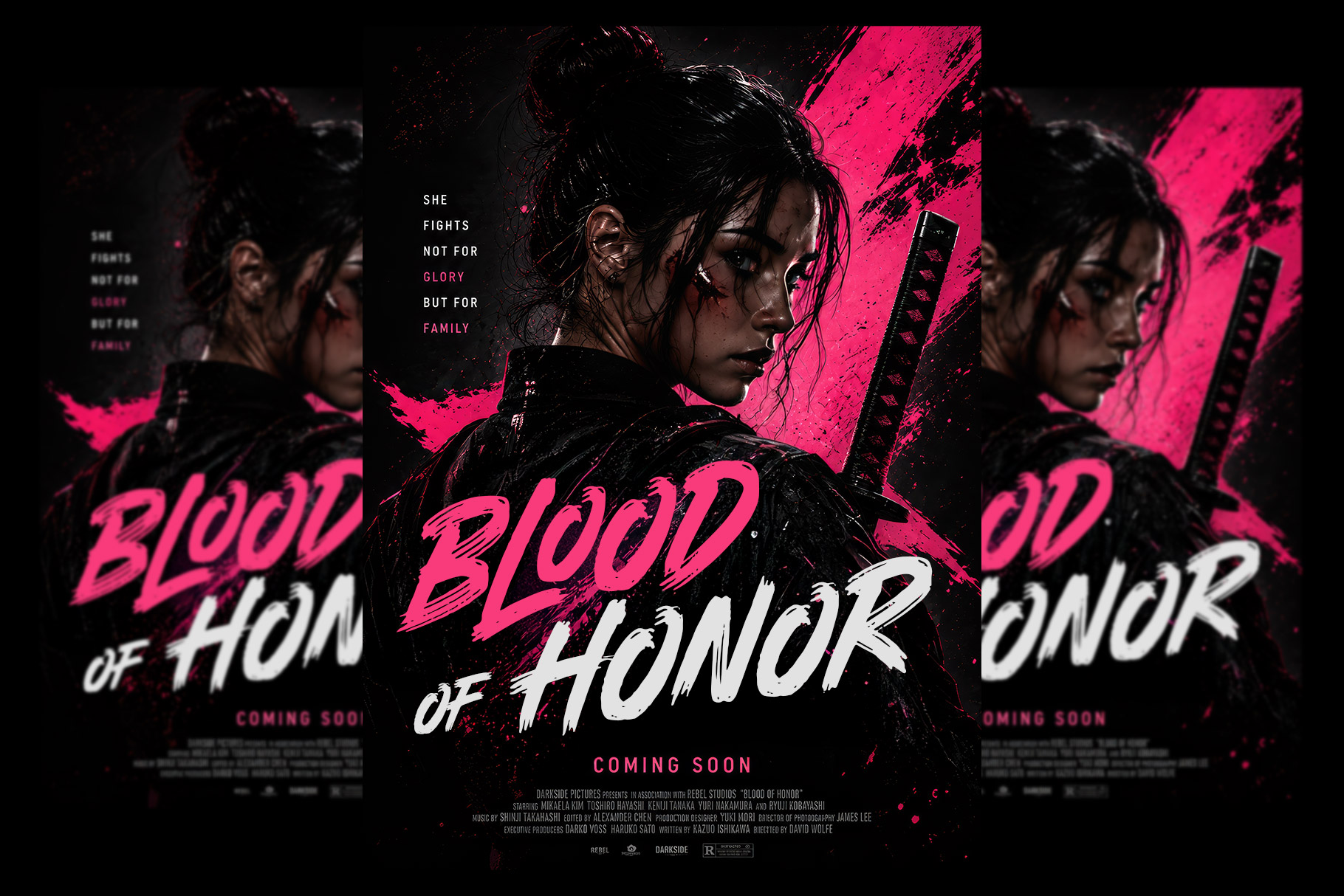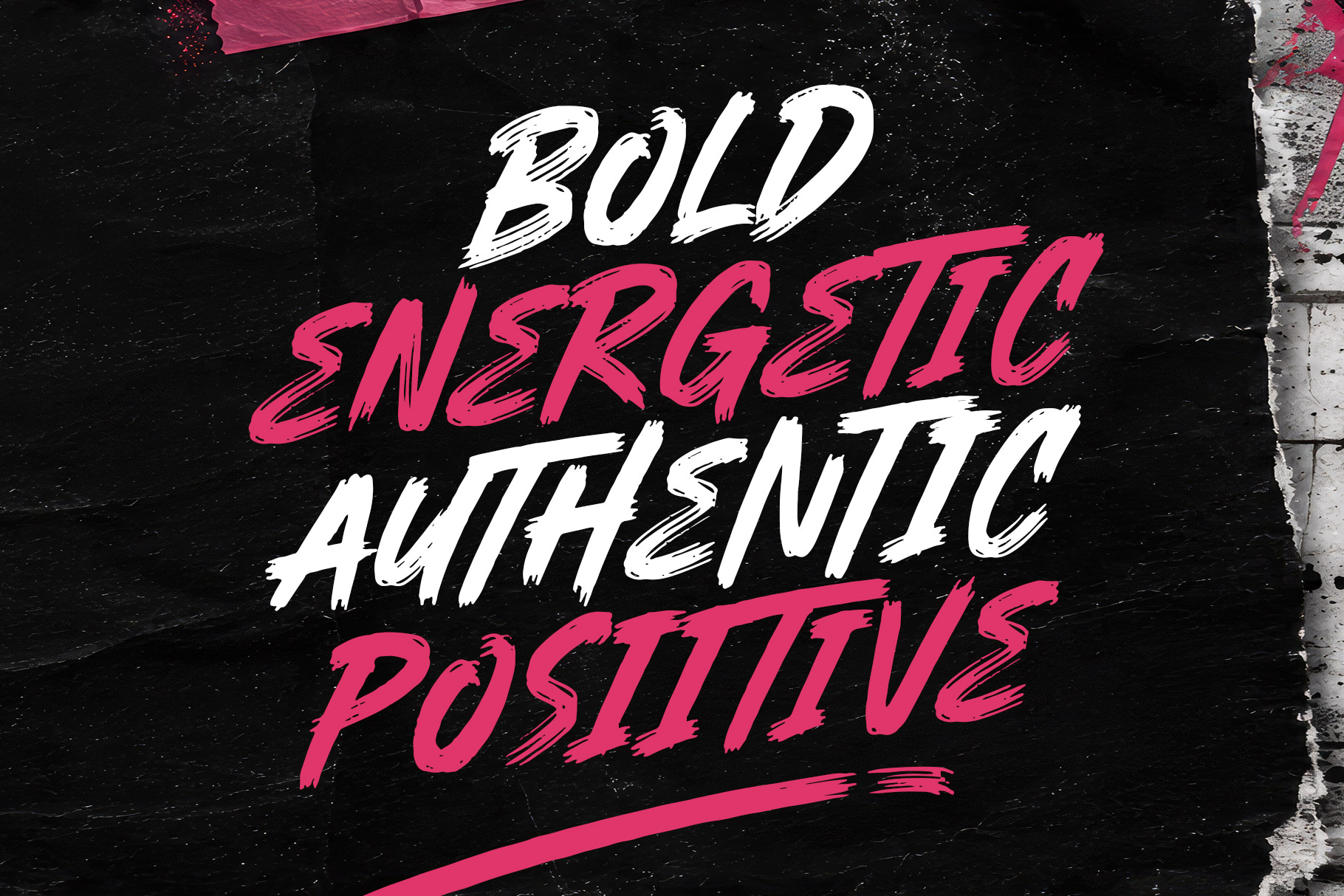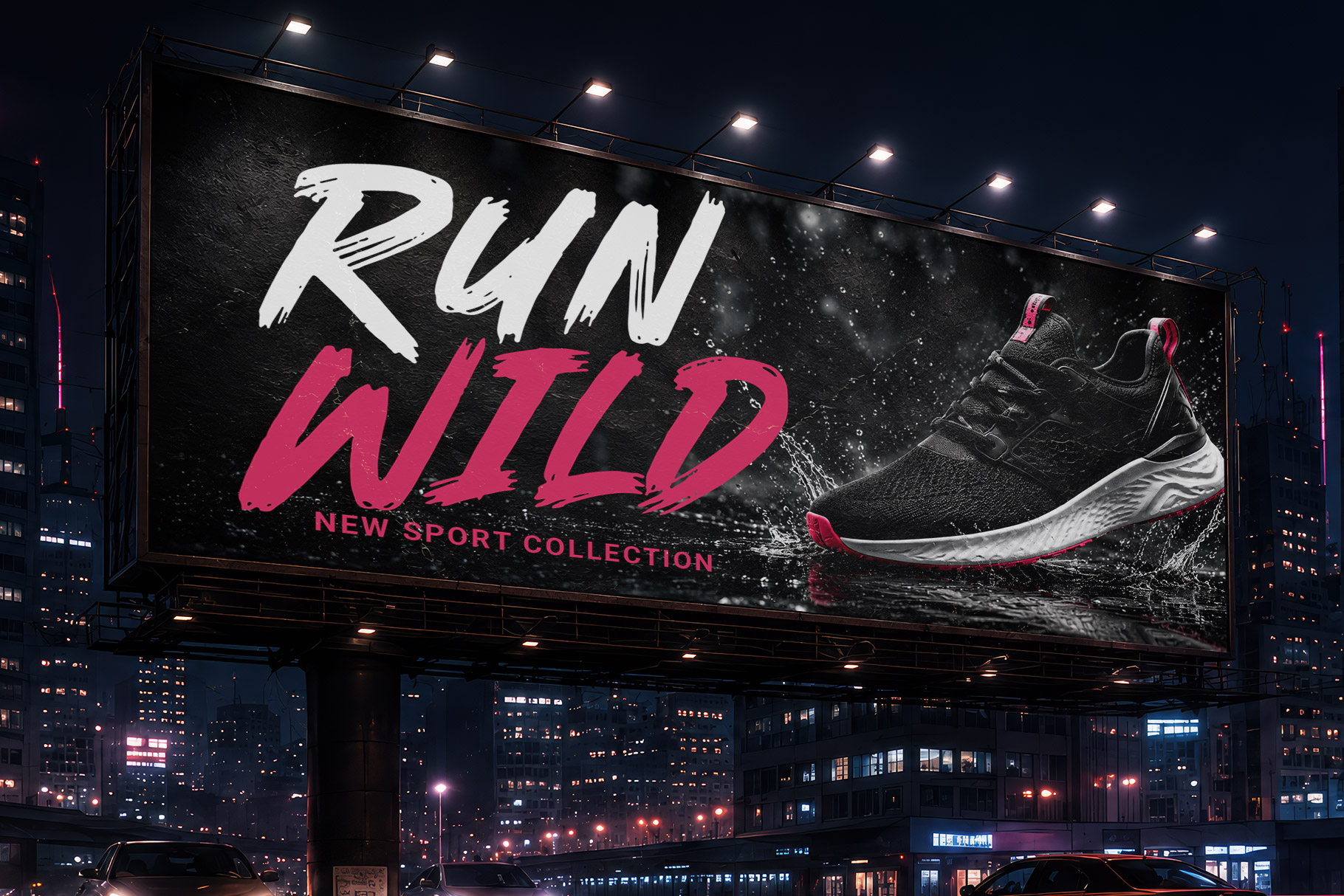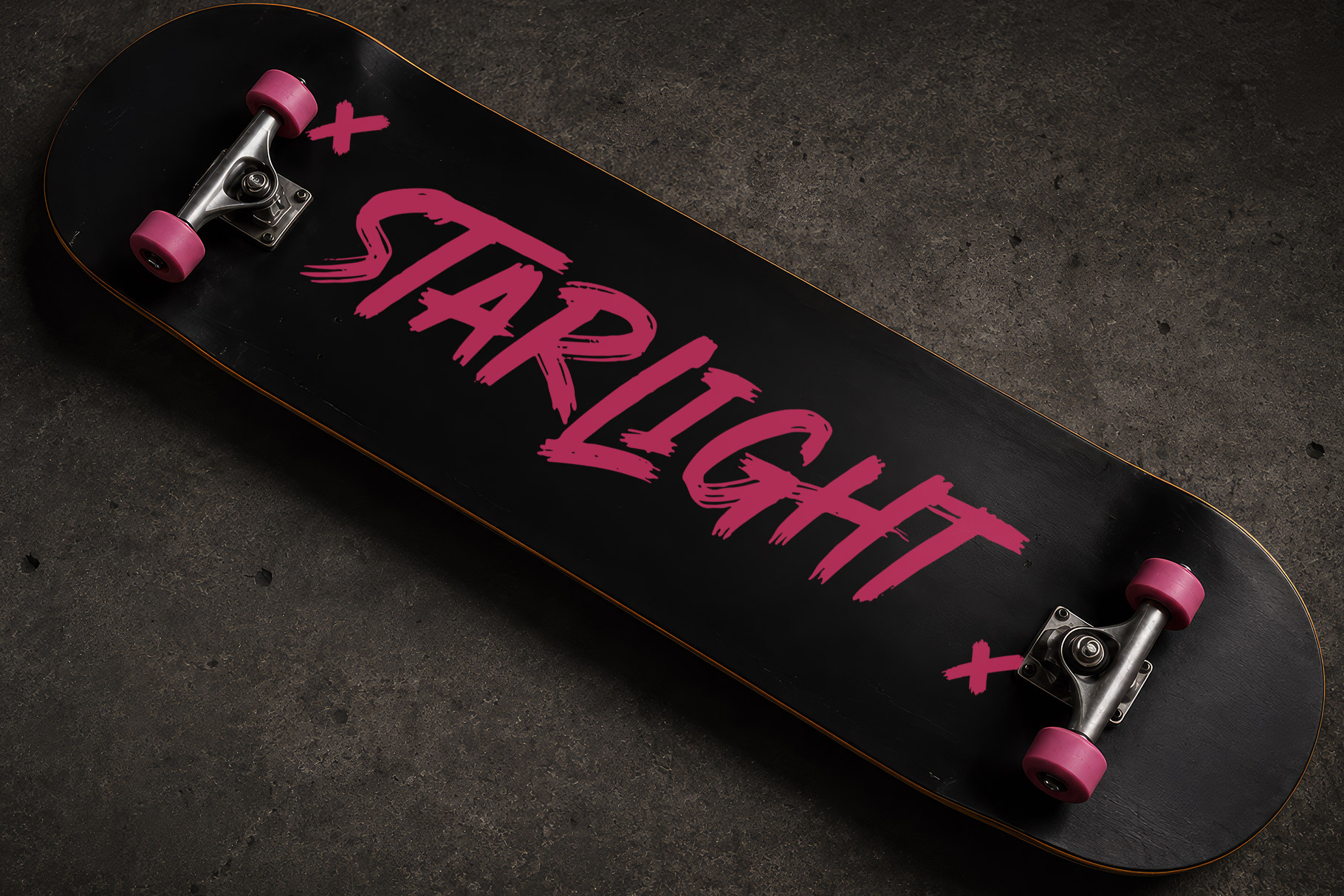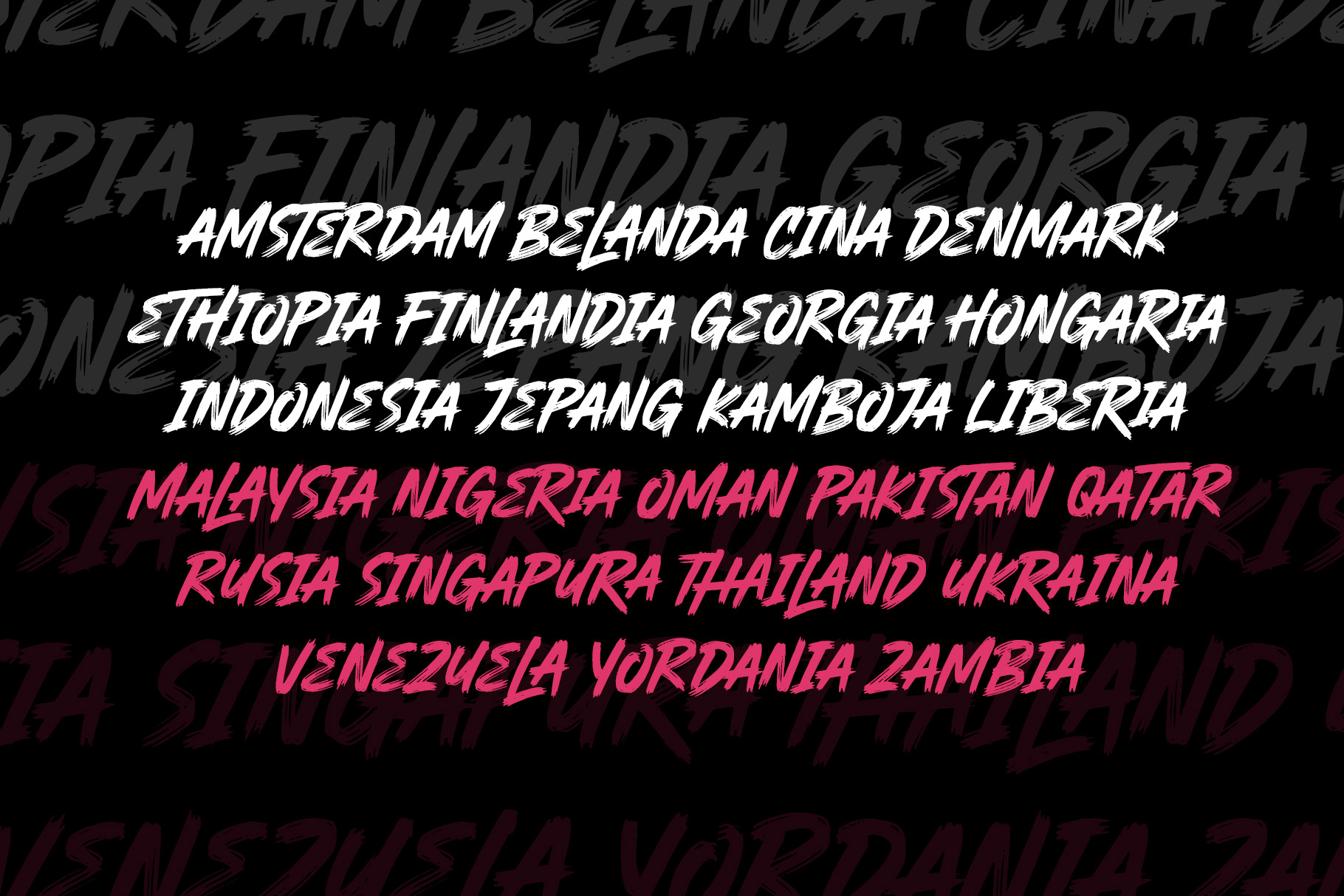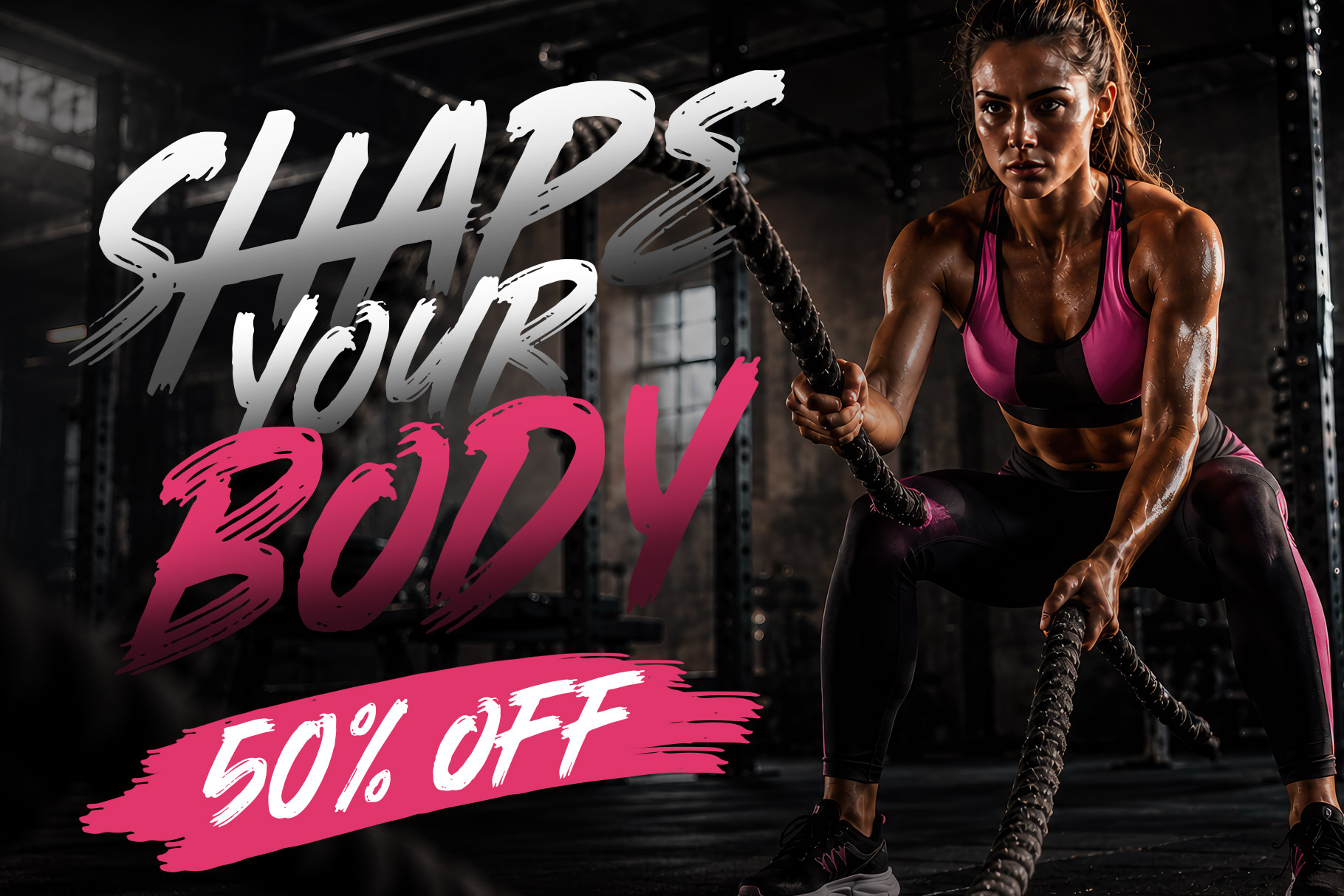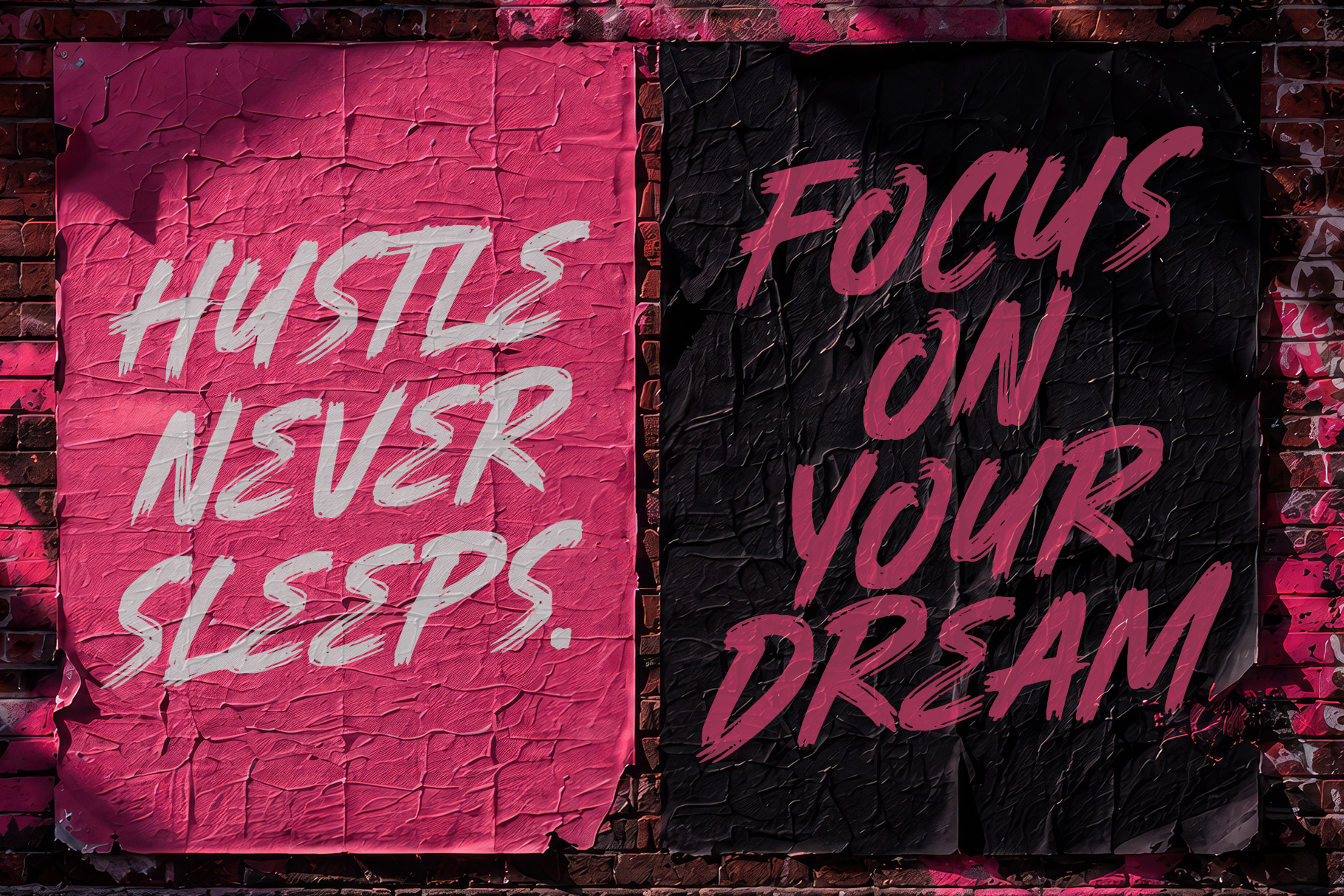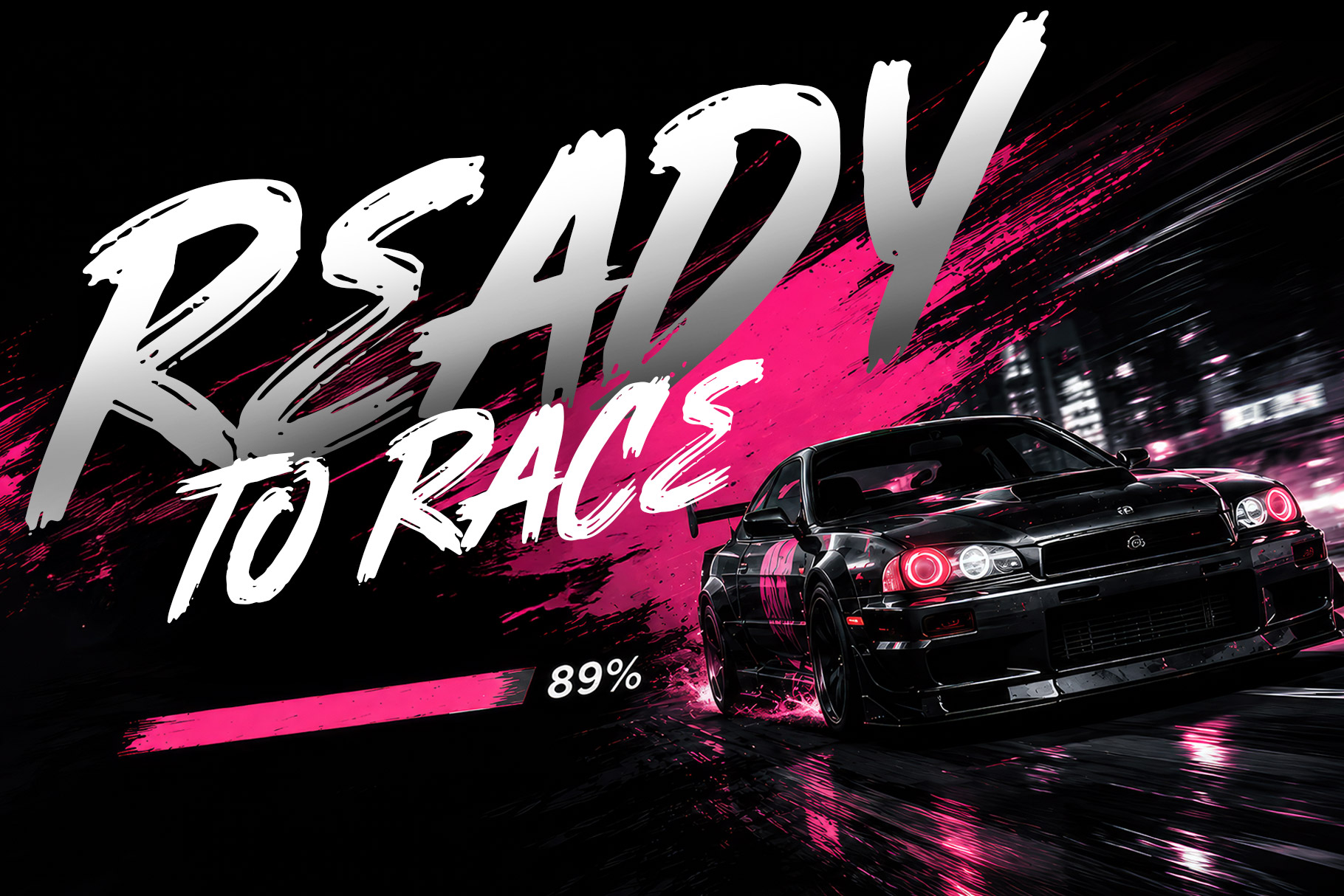
Kortha is captures the raw energy of hand-painted street lettering with a bold, expressive personality. Kortha is a perfectly choice for any creative endeavor, creating, modern, lifestyle design such as logotype, title, cover, branding, invitations, display and magazine, social media posts, advertisements, printed quotes, product packaging, corporate brand, product designs, labels, watermarks, special events and any other project with street touch.
Kortha Marker Street Font